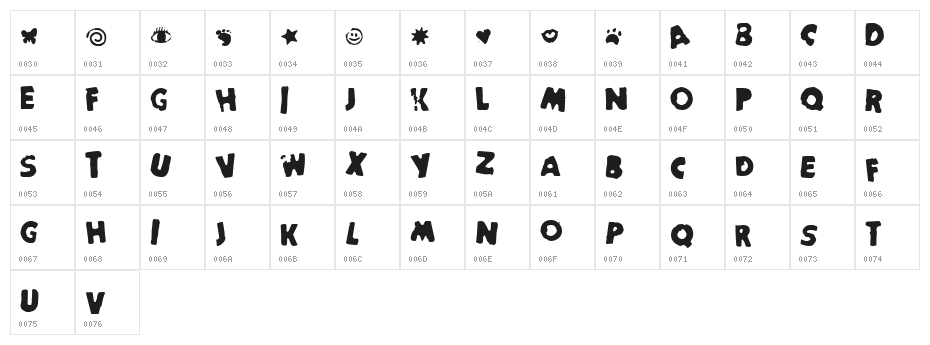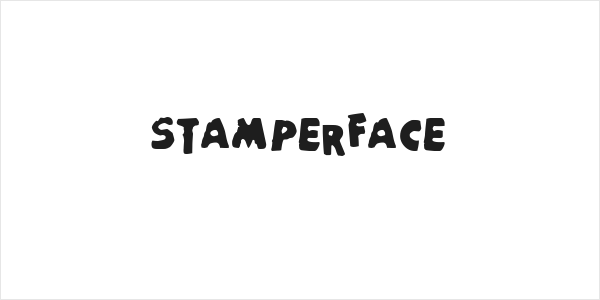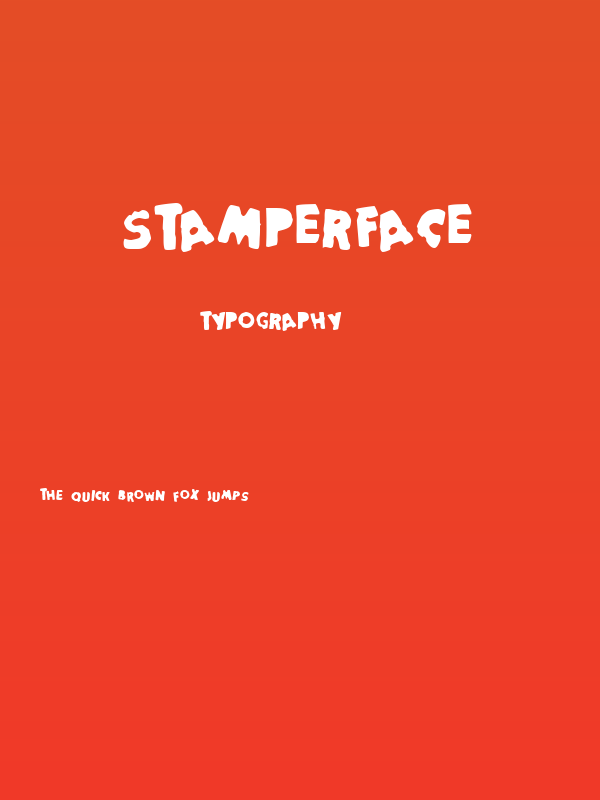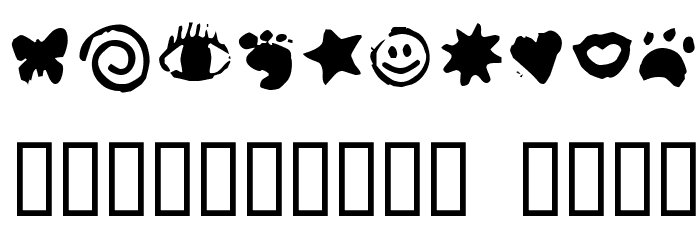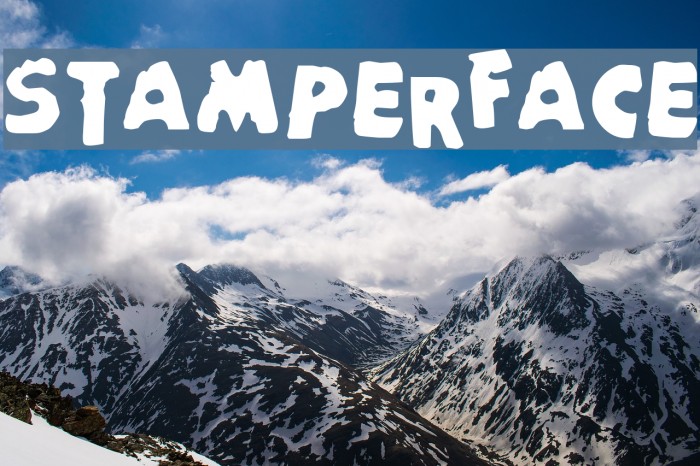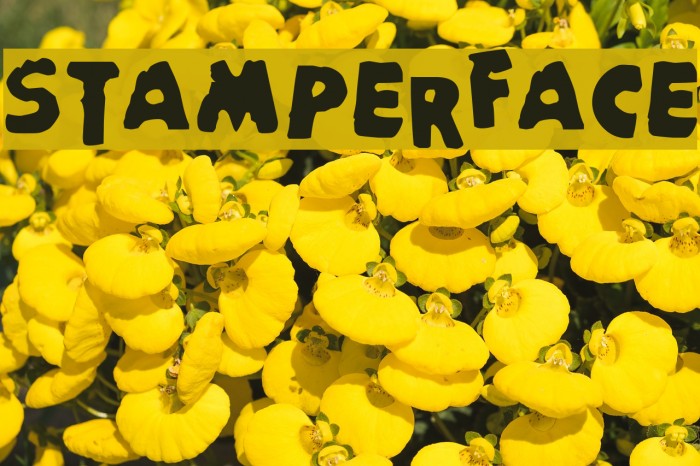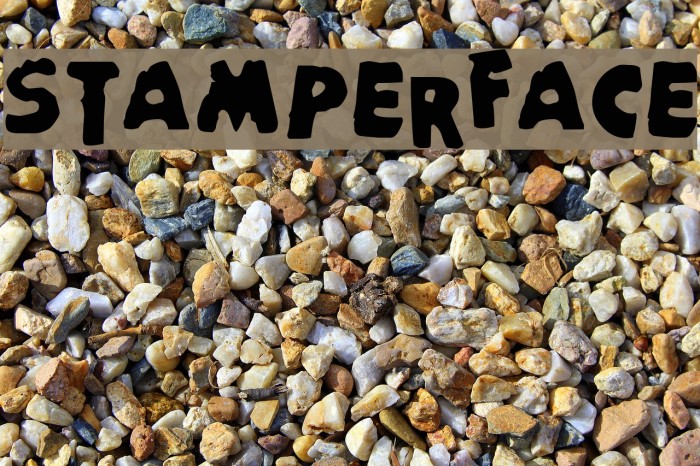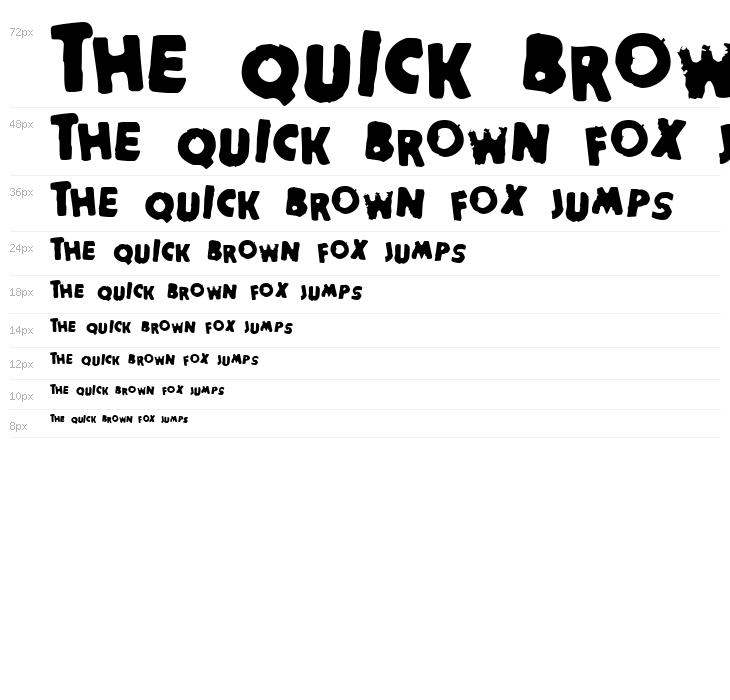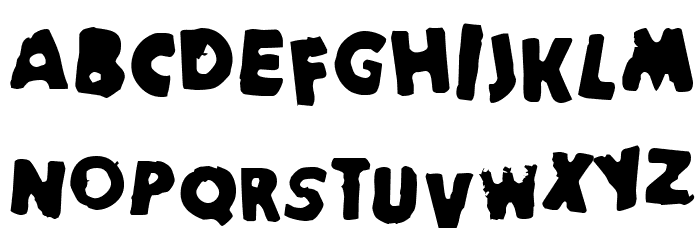
StamperFace Font
StamperFace Description
This font features a bold, playful design with irregular, chunky letterforms that give it a hand-stamped appearance. The characters are unevenly shaped, adding a whimsical and artistic flair. The uppercase and lowercase letters maintain a consistent style, with exaggerated curves and varying thicknesses that create a dynamic visual impact. The numbers and special characters follow the same aesthetic, ensuring a cohesive look across all glyphs. This font's unique style is perfect for projects that require a fun and informal touch.
| Overall Style | Playful, Artistic |
| Proposed Projects | Ideal for children's books, playful branding, posters, and creative event invitations. |